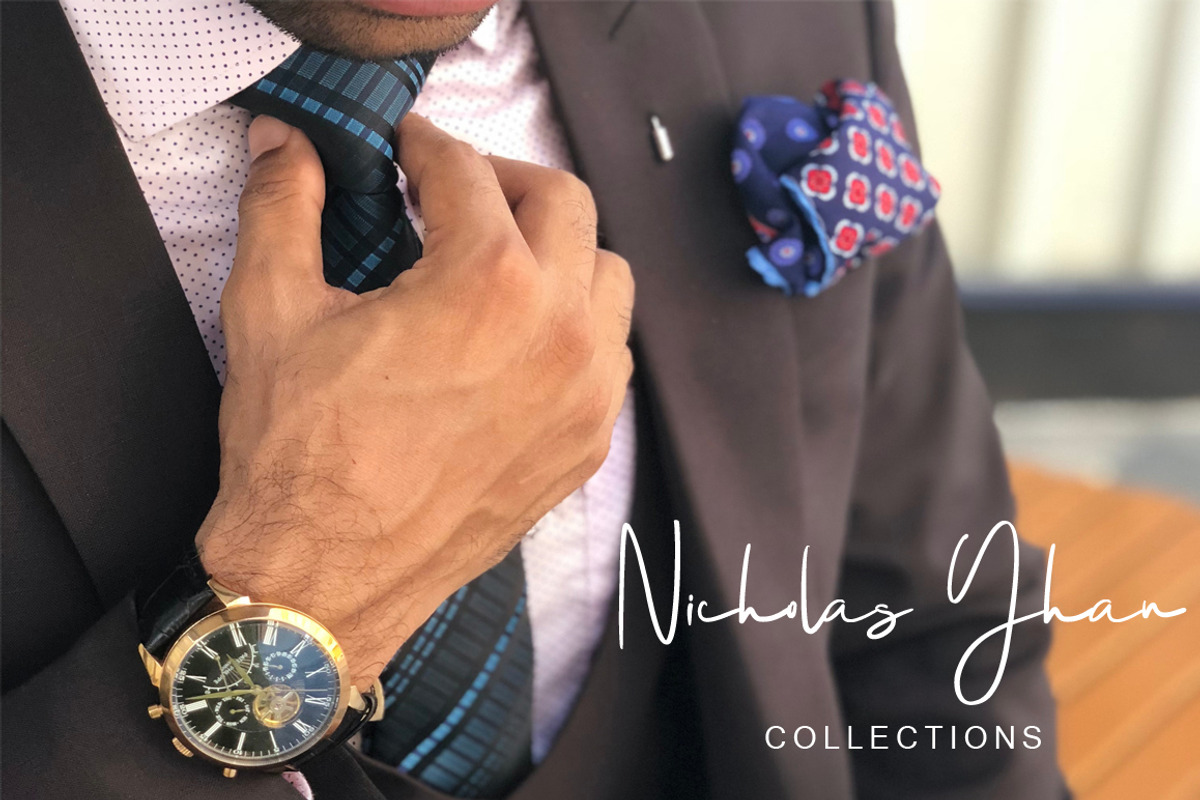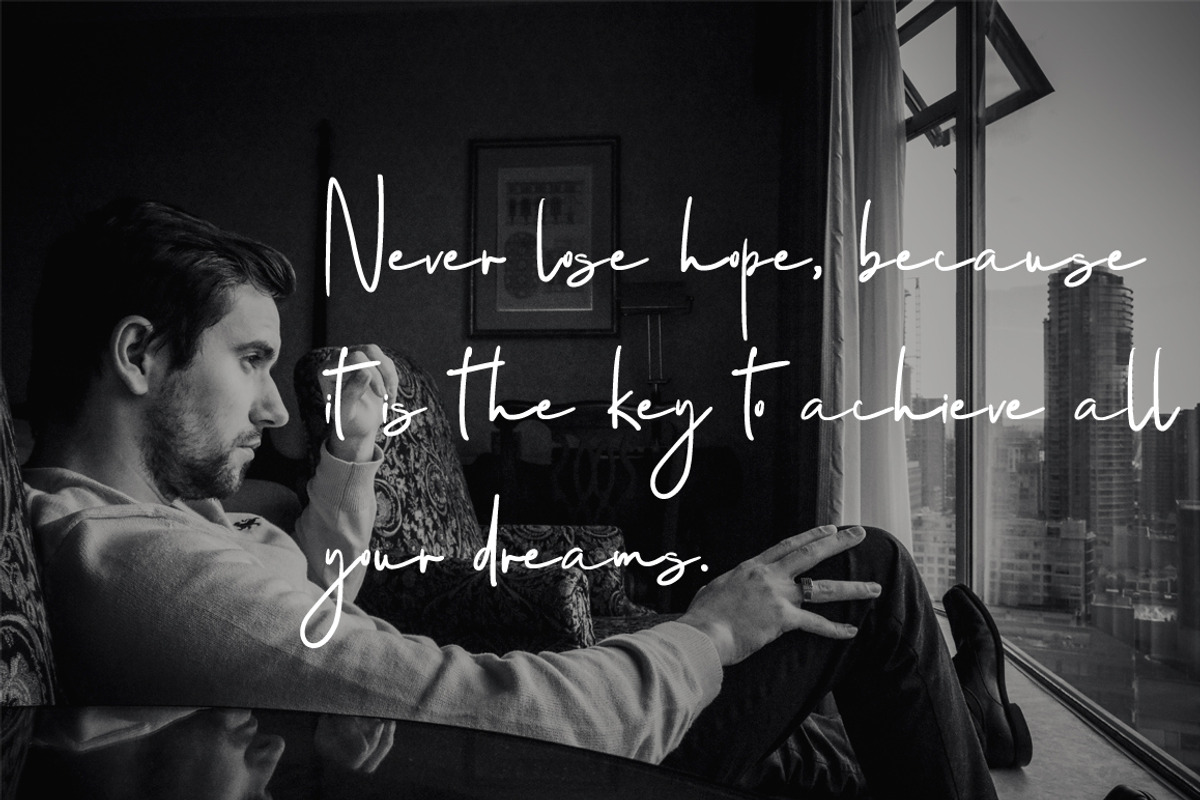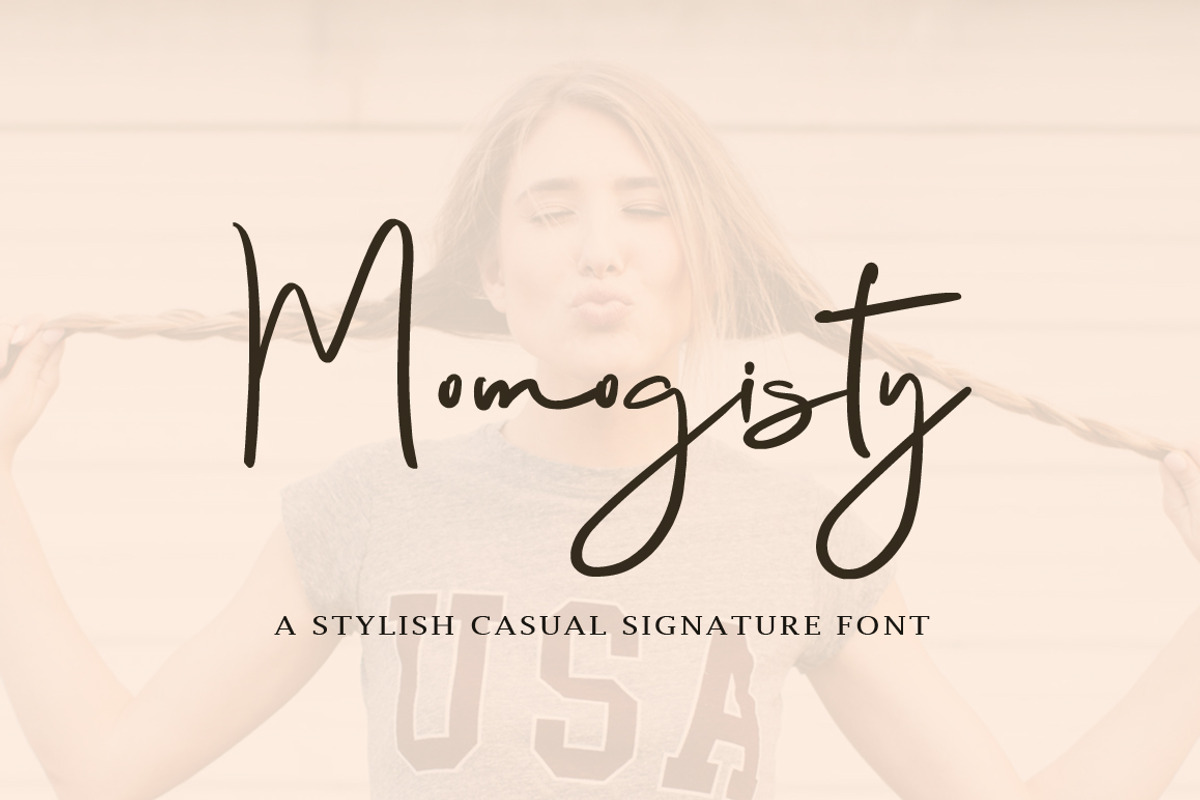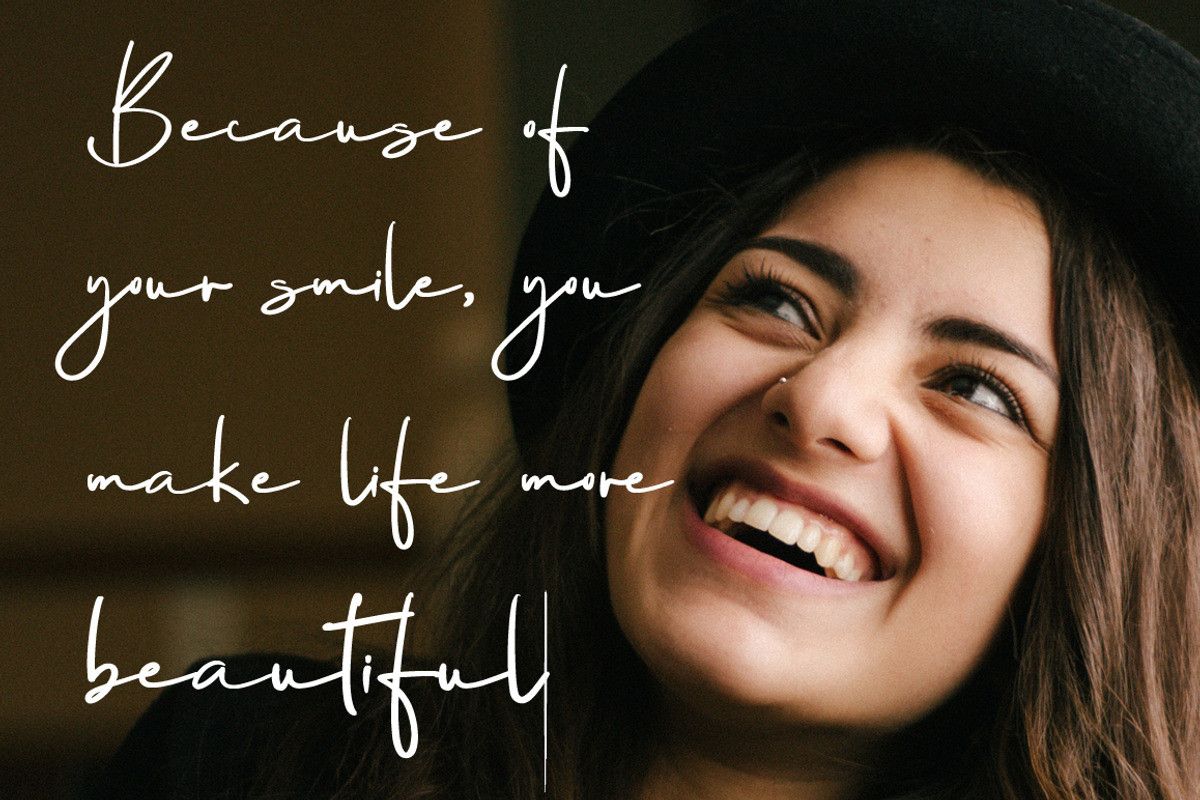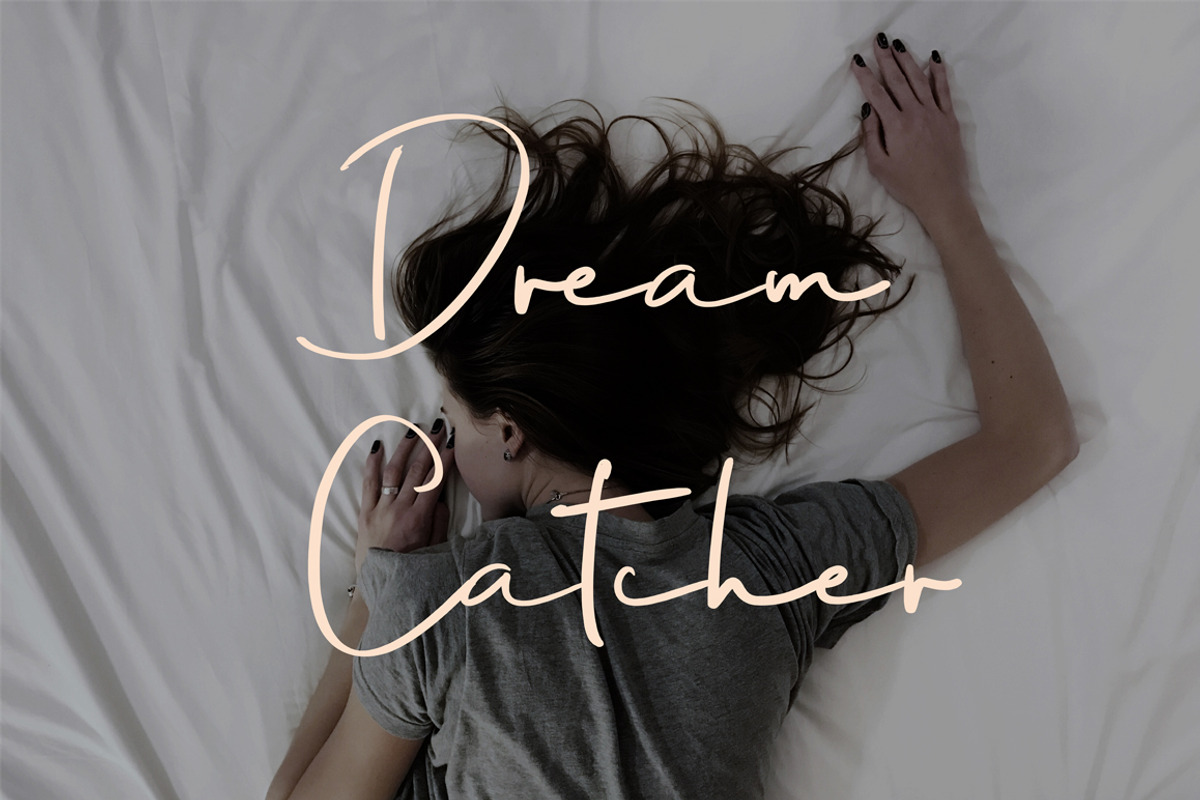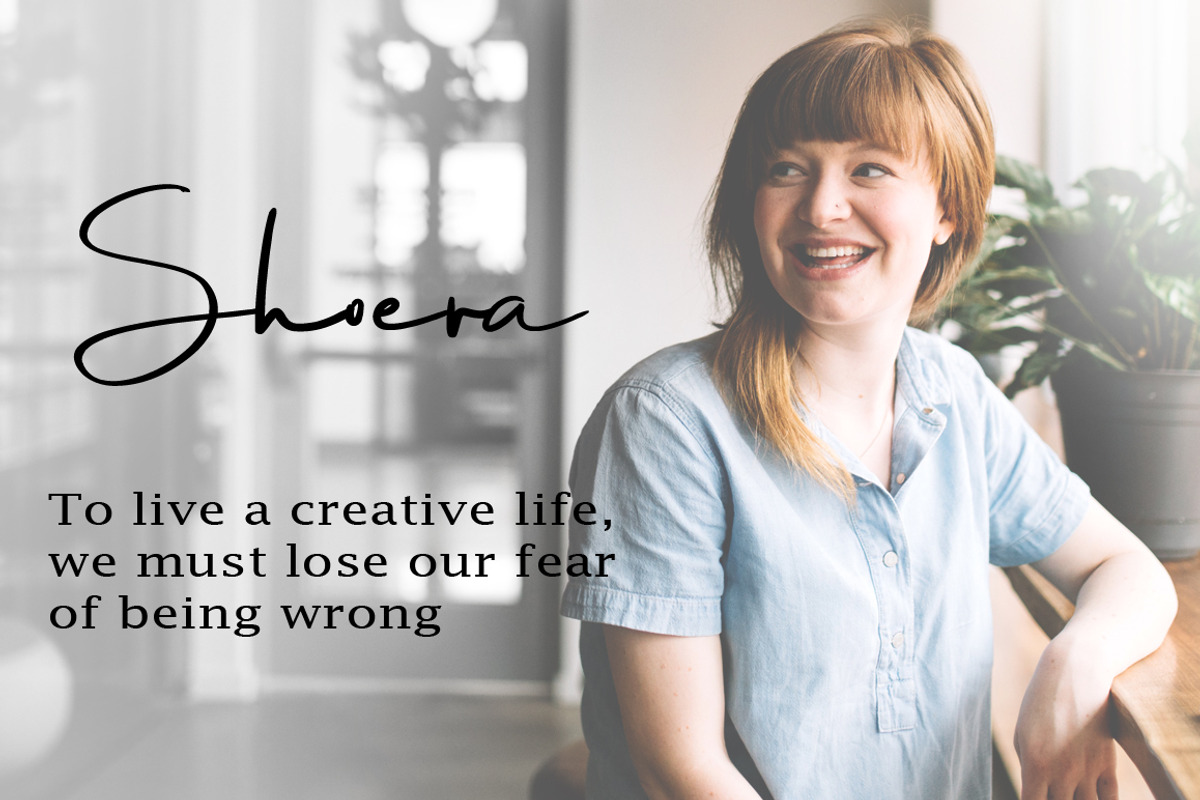
Momogisty - Signature Font
Introducing the Momogisty Signature Font a classy, fun and fabolous dreamy font. This fonts is very suitable for logo, printed quotes, badge, packaging, headline, poster, t-shirt/apparel, and more.